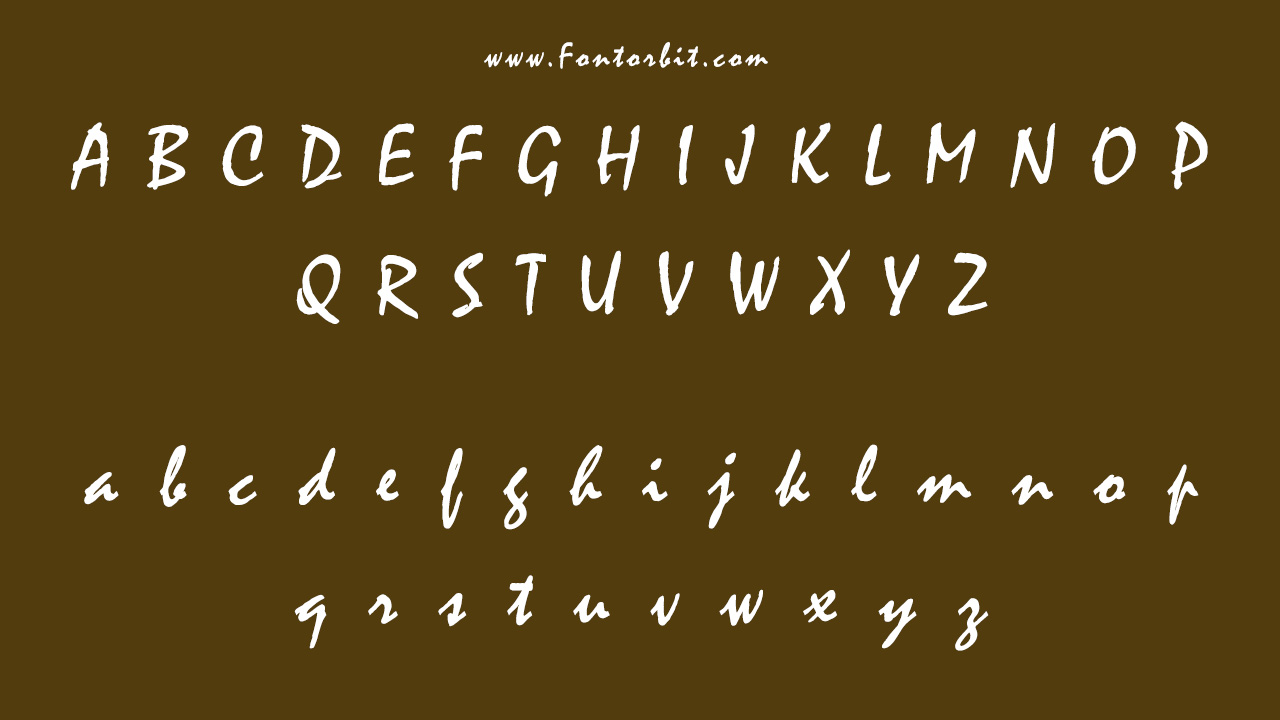
Mistral is a casual script typeface designed by Roger Excoffon and released by the Fonderie Olive foundry in 1953.
Known for its informal, handwritten appearance, Mistral captures the essence of brush and ink strokes. This distinctive font is popular for its fluid, connecting script miming cursive writing.
Notable Uses Of Mistral Font
- Film posters (e.g., the title of the film Drive)
- Artistic and creative invitations
- Informal branding and logo design
- Typography for creative projects needing a handwritten feel
Mistral Font is a timeless script typeface that brings a unique, handwritten quality to various design projects. Its casual, flowing style is perfect for adding a personal touch to your work, from movie posters to invitations. Despite its origins in metal type, Mistral remains a versatile and elegant choice in digital form.
1.What Type Of Font Is Mistral?
Roger Excoffon designed Mistral as a casual script typeface that mimics handwritten brush strokes.
2.Who Designed Mistral Font?
Roger Excoffon designed Mistral Font.
3.When Was Mistral Font Released?
Mistral Font was released in 1953.
6.What Are Some Notable Uses Of Mistral Font?
Notable uses include movie posters and creative invitations.
10.Can Mistral Font Be Used For Logo Design?
Yes, Mistral Font is suitable for informal logo design and creative projects.